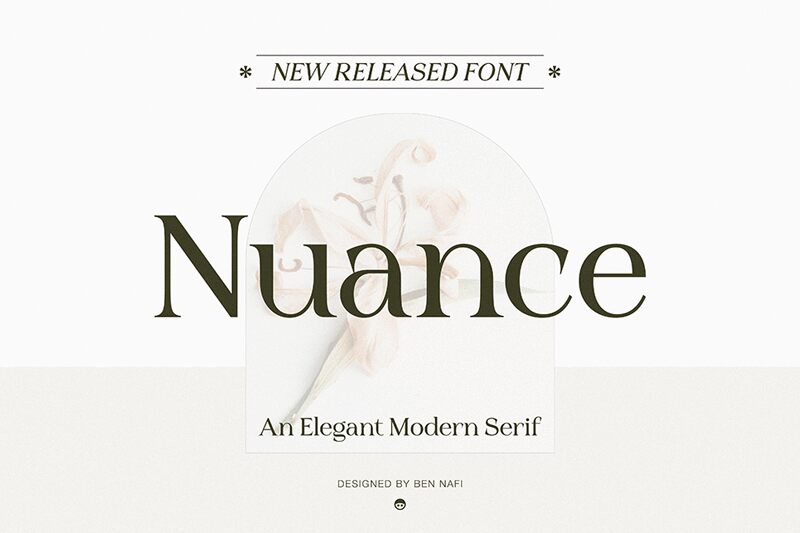
Nuance Italic, a creation by designer Ben Nafi, exudes a refined elegance with its serif style, adding a touch of classic sophistication to any text. Its slanted posture infuses a dynamic rhythm into the reading experience, while the serifs bring a traditional charm that is both versatile and visually engaging. The strokes convey a subtle boldness that makes it stand out without overwhelming the reader.
Ideal for contexts demanding both flair and readability, Nuance Italic could grace the pages of literary works or upscale branding materials with equal aplomb. From editorial design to tasteful logos, its distinguished look offers designers a timeless yet contemporary tool for crafting compelling narratives and identities.